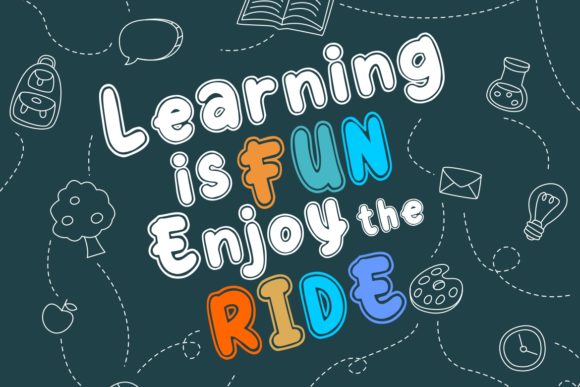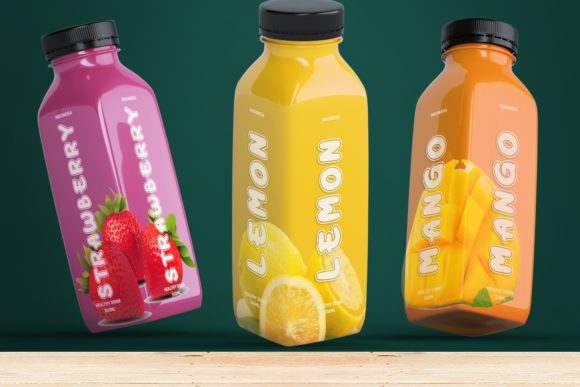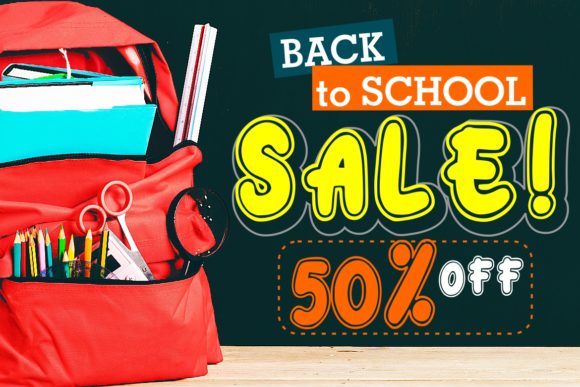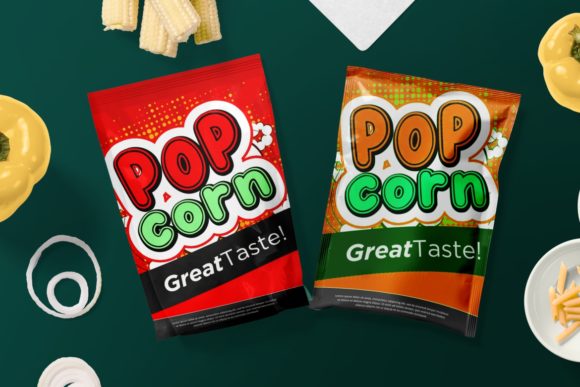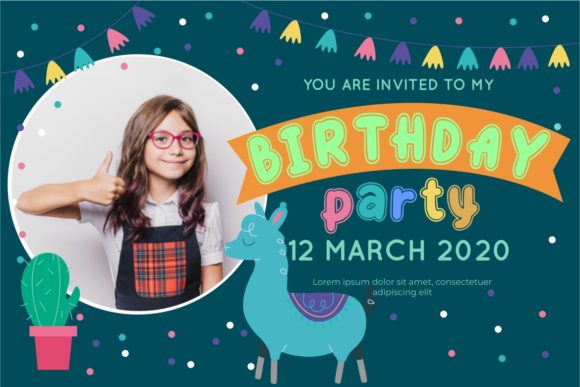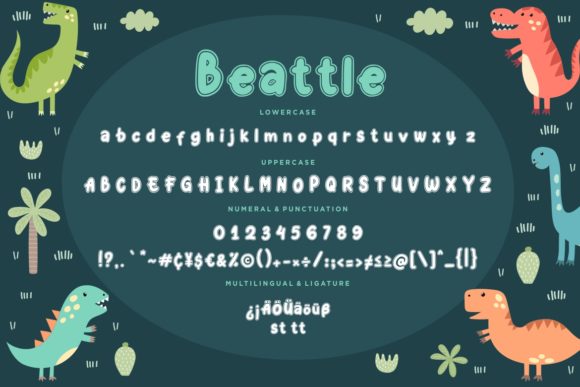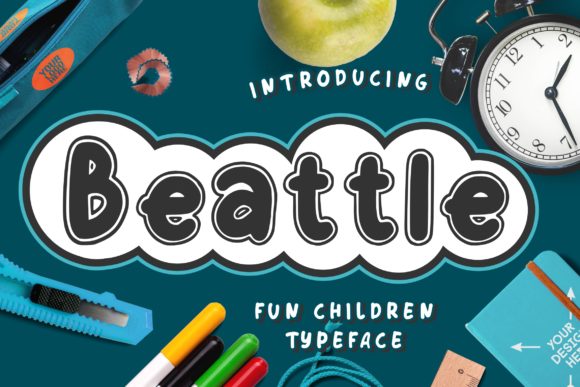
Introducing Beattle Font: Adding a Whimsical Twist to Your Designs
Are you a designer or crafter looking for a font that can add a playful touch to your kids- or school-themed design projects? Look no further than Beattle Font! This charming font is designed to celebrate the good things in life and bring a sense of whimsy to your creations.
What is Beattle Font?
Beattle Font is a unique and creative typeface that is perfect for designers and crafters who want to add a personal touch to their work. With its playful and carefree design, Beattle Font is ideal for a variety of projects, including children’s books, educational materials, posters, and more.
Key Features of Beattle Font
- Whimsical design: Beattle Font features a whimsical design that is sure to capture the attention of your audience. Its playful curves and lines make it perfect for kids- or school-themed projects.
- Easy to read: Despite its playful design, Beattle Font is easy to read and understand, making it perfect for use in educational materials and children’s books.
- Versatile: Beattle Font can be used in a variety of projects, from digital designs to print materials.
- Unique: Beattle Font has a unique design that sets it apart from other fonts, making it perfect for designers and crafters who want to add a personal touch to their work.
How to Use Beattle Font in Your Designs
Beattle Font is easy to use in a variety of design projects. Here are a few ideas to get you started:
- Children’s books: Use Beattle Font to create engaging and interactive children’s books that will capture the attention of young readers.
- Educational materials: Beattle Font is perfect for use in educational materials, such as worksheets, activity sheets, and educational posters.
- Posters and flyers: Use Beattle Font to create eye-catching posters and flyers for kids’ events, school activities, and more.
- Digital designs: Beattle Font can be used in digital designs, such as social media graphics, blog posts, and website headers.
Benefits of Using Beattle Font
There are many benefits to using Beattle Font in your designs. Here are a few:
- Adds a playful touch: Beattle Font adds a playful touch to your designs, making them more engaging and interactive.
- Perfect for kids- or school-themed projects: Beattle Font is specifically designed for kids- or school-themed projects, making it a great choice for designers and crafters who work with these types of projects.
- Easy to read: Beattle Font is easy to read, making it perfect for use in educational materials and children’s books.
- Unique and creative: Beattle Font has a unique and creative design that sets it apart from other fonts.
Tips for Getting the Most Out of Beattle Font
Here are a few tips for getting the most out of Beattle Font:
- Experiment with different colors: Beattle Font looks great in a variety of colors, so don’t be afraid to experiment and find the perfect color for your design.
- Use it with other fonts: Beattle Font can be used with other fonts to create a unique and creative design.
- Pay attention to spacing: Make sure to pay attention to spacing when using Beattle Font, as it can affect the overall look and feel of your design.
Beattle Font is a unique and creative typeface that is perfect for designers and crafters who want to add a playful touch to their kids- or school-themed design projects. With its whimsical design, ease of use, and versatility, Beattle Font is a great choice for a variety of projects. Whether you’re creating a children’s book, educational materials, or a poster, Beattle Font is sure to add a touch of whimsy and fun to your design.